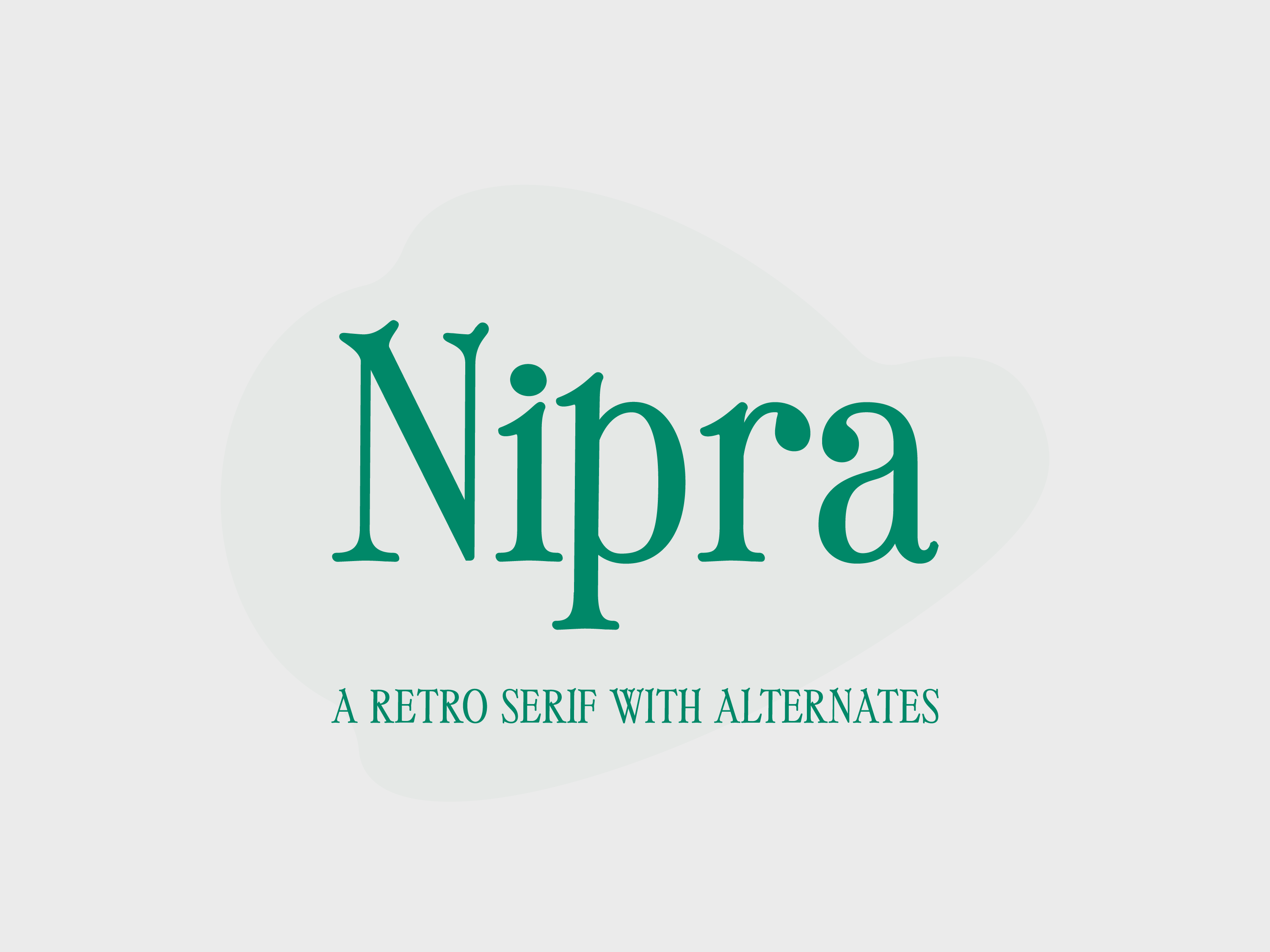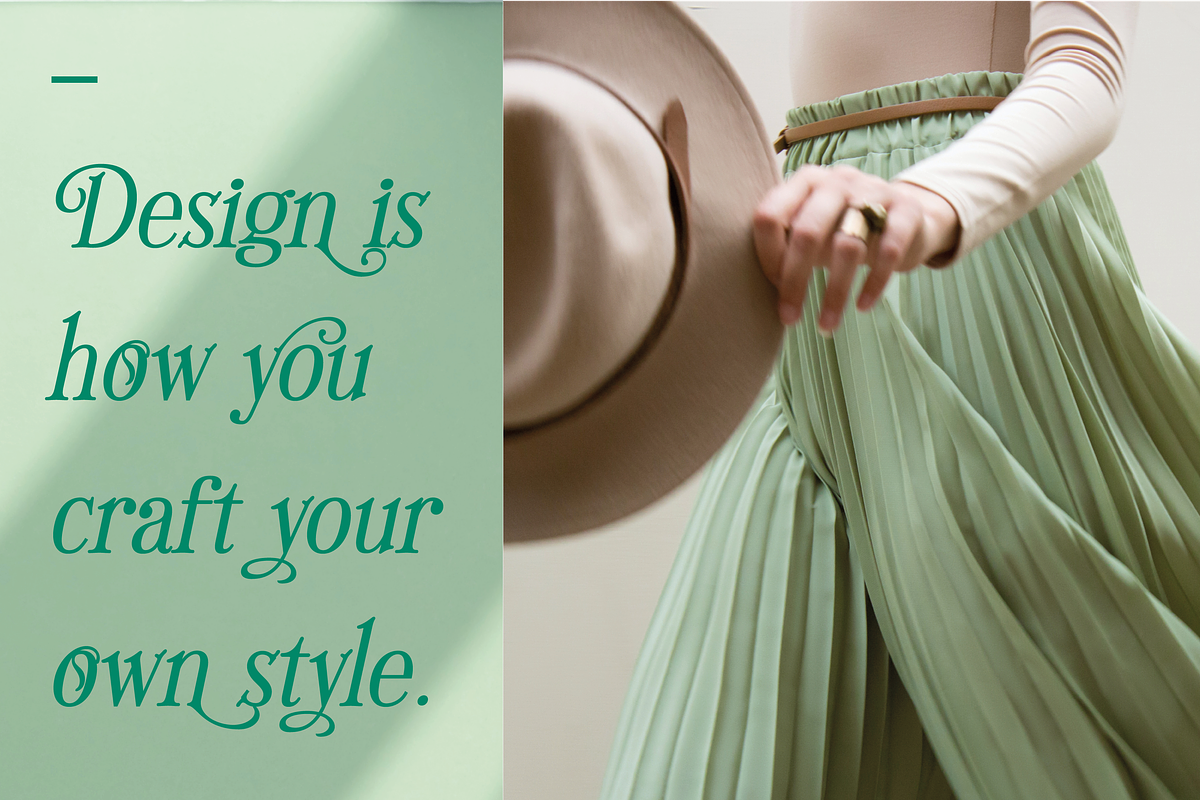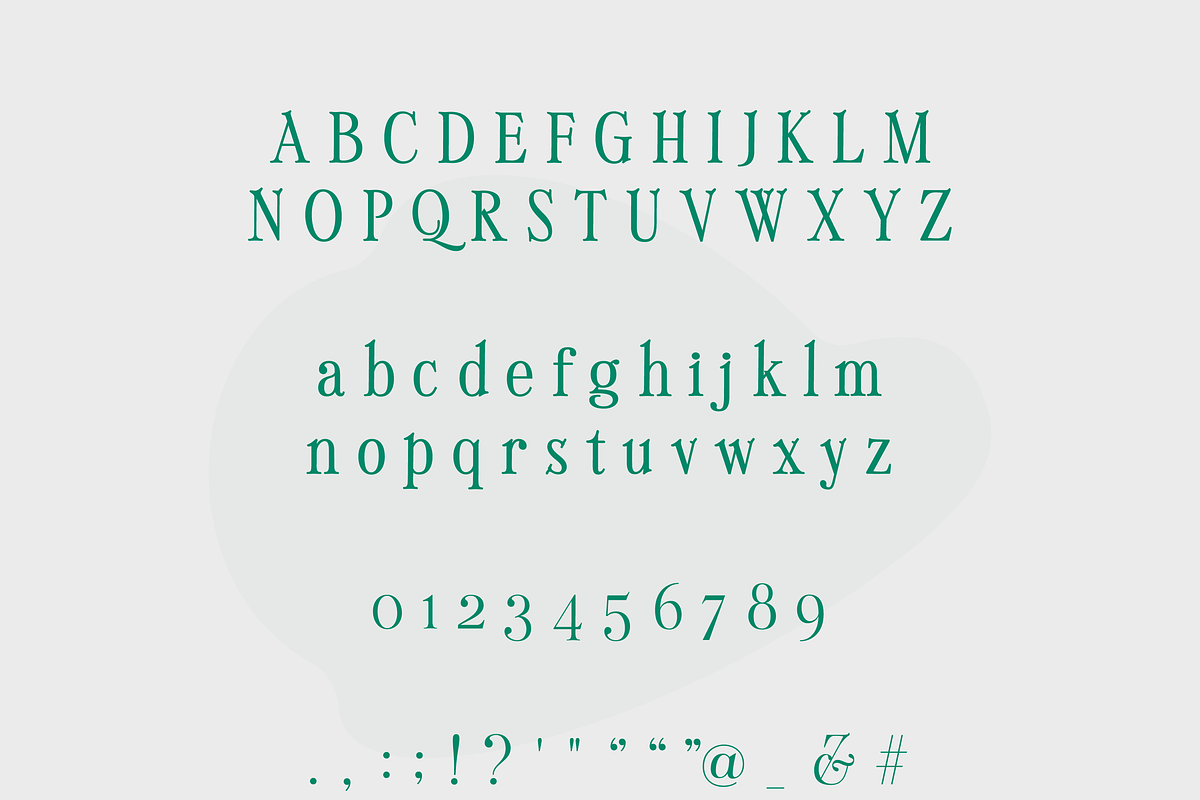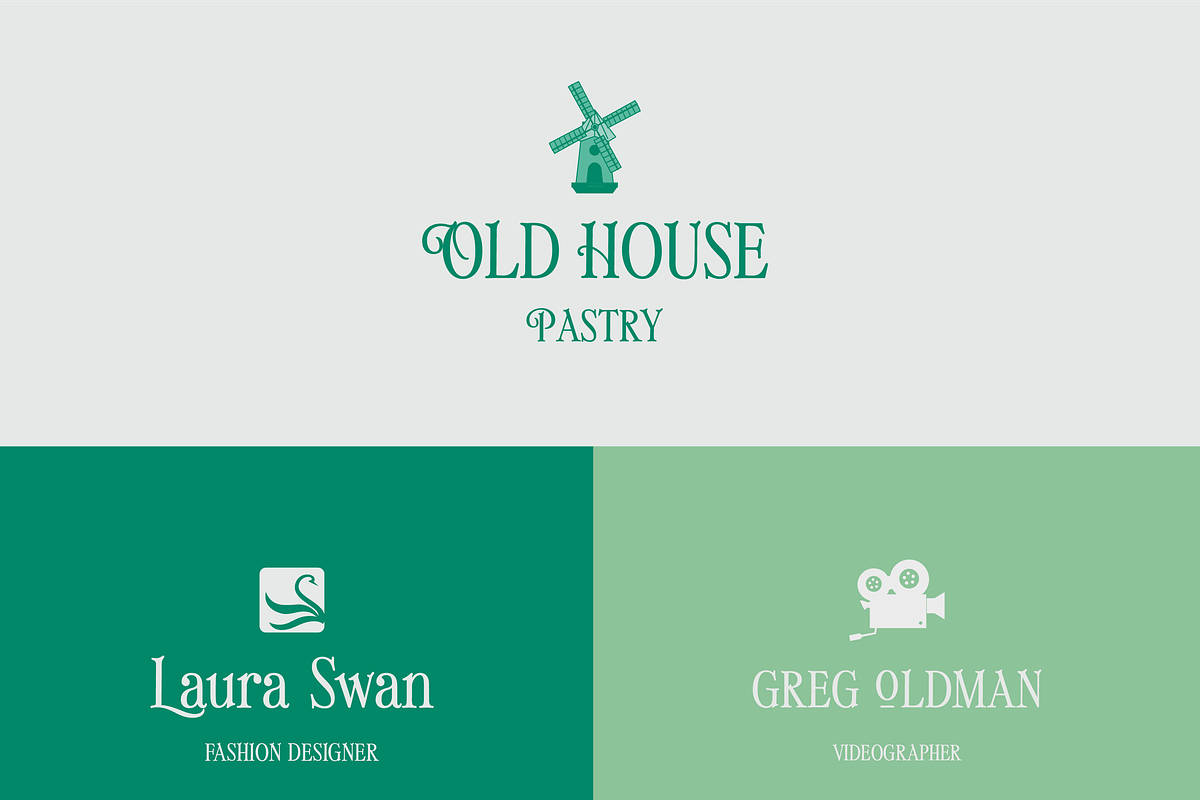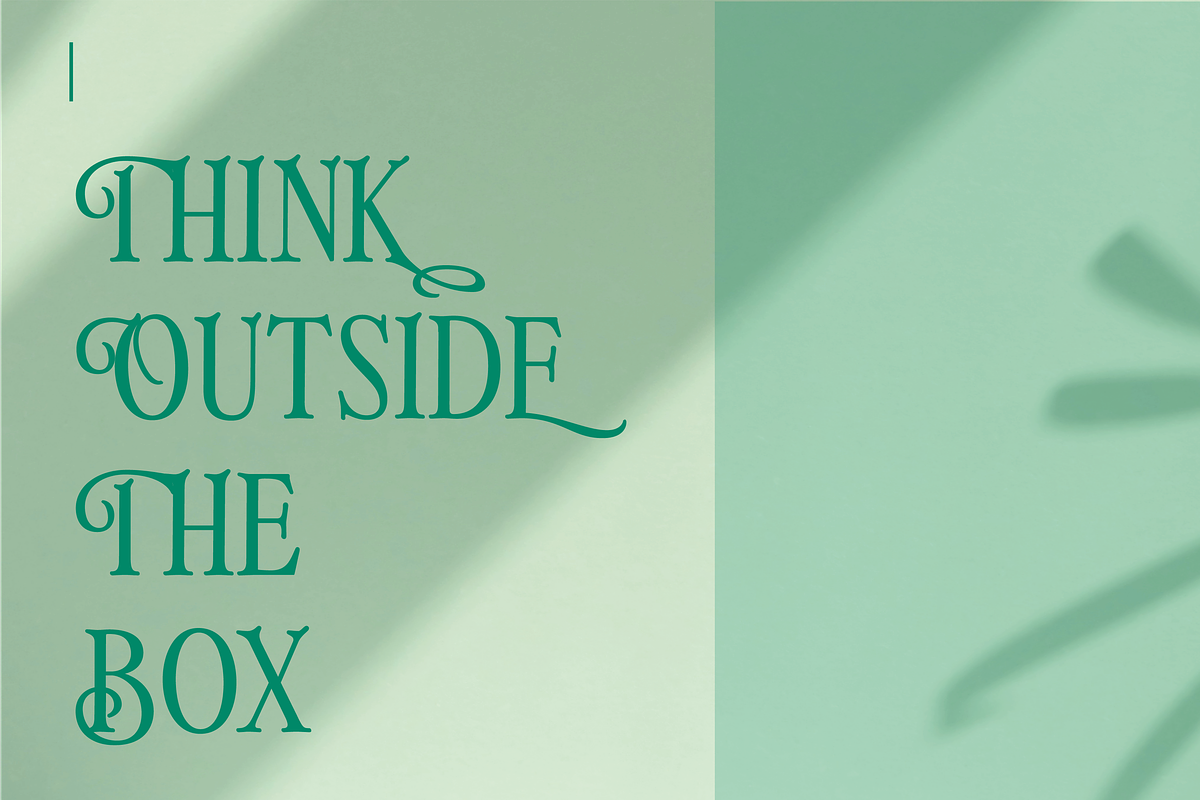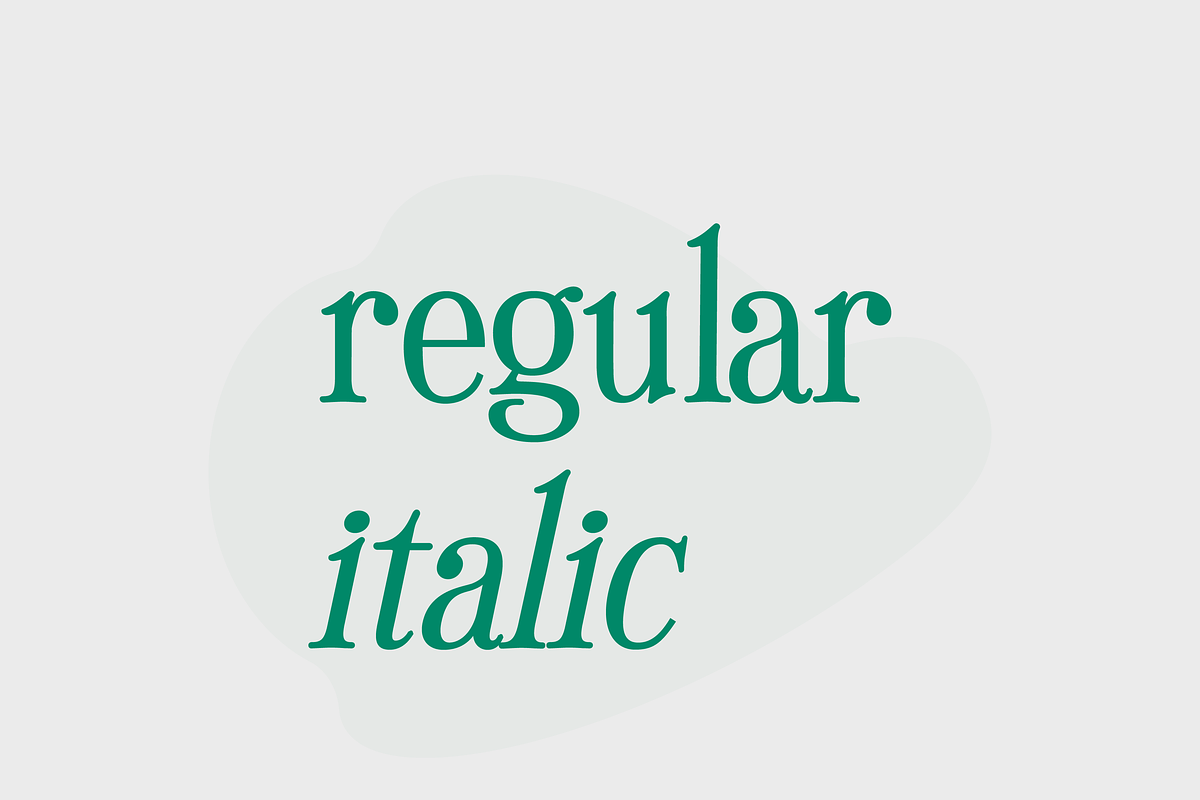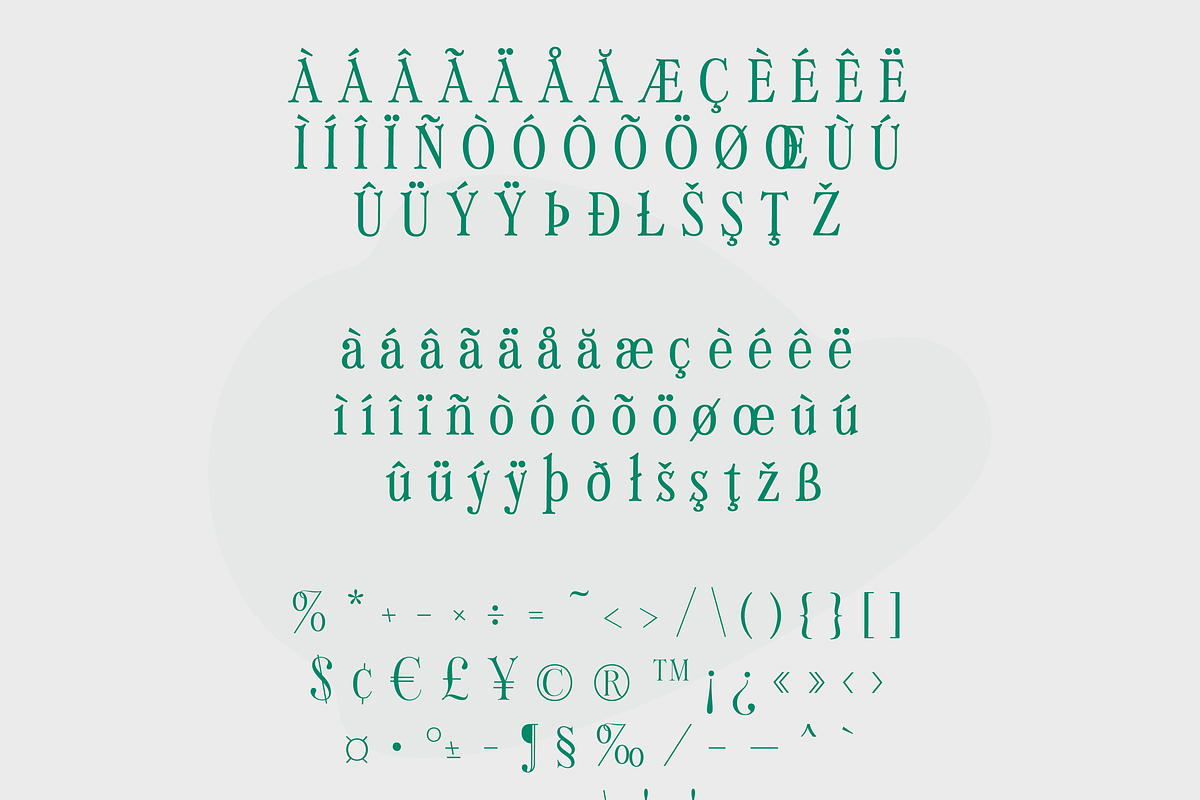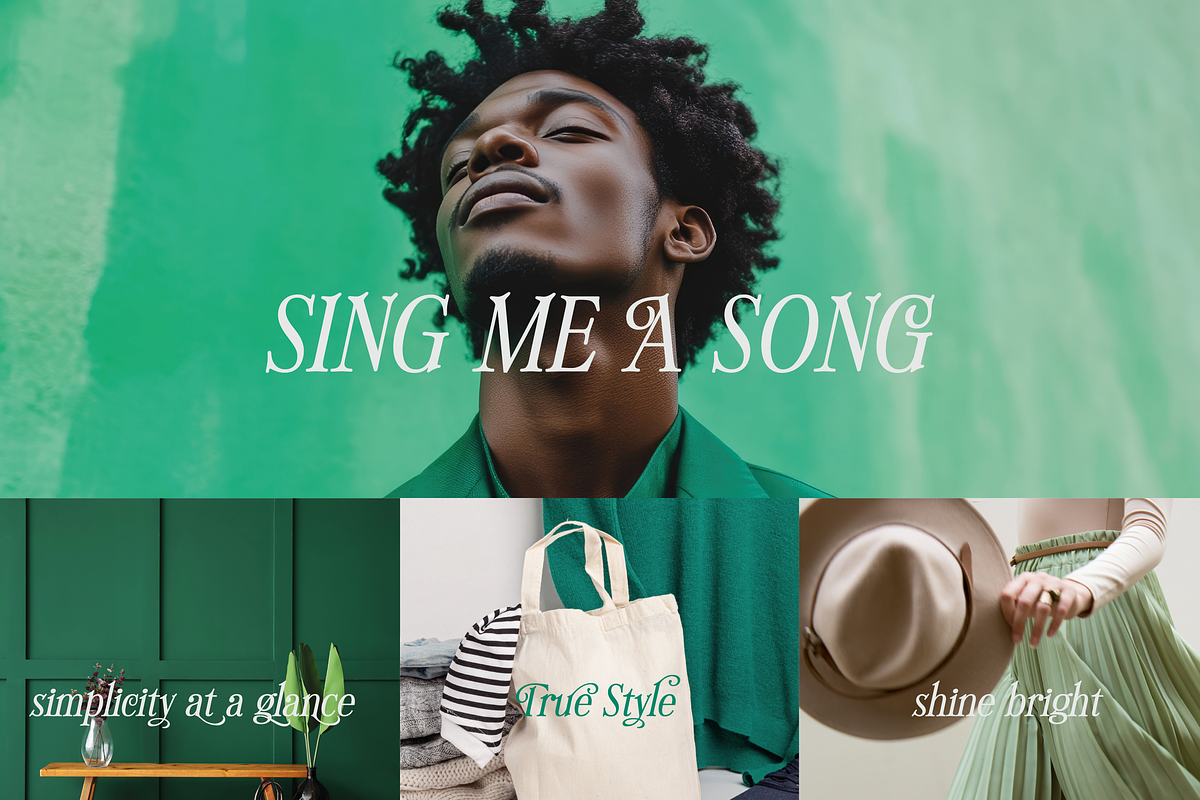
Nipra Retro Serif Font
Nipra – Modern Serif Display Typeface
Nipra is a serif modern display typeface that exudes luxury and elegance, available in both regular and italic styles. Drawing inspiration from minimalist design and high-end branding, Nipra is crafted with simplicity in mind, making it the perfect fit for projects that demand sophistication and refinement.
Nipra is the ideal typeface for projects that require a modern yet timeless appeal, combining the best of both worlds—minimalism and luxury—making it perfect for high-impact designs.